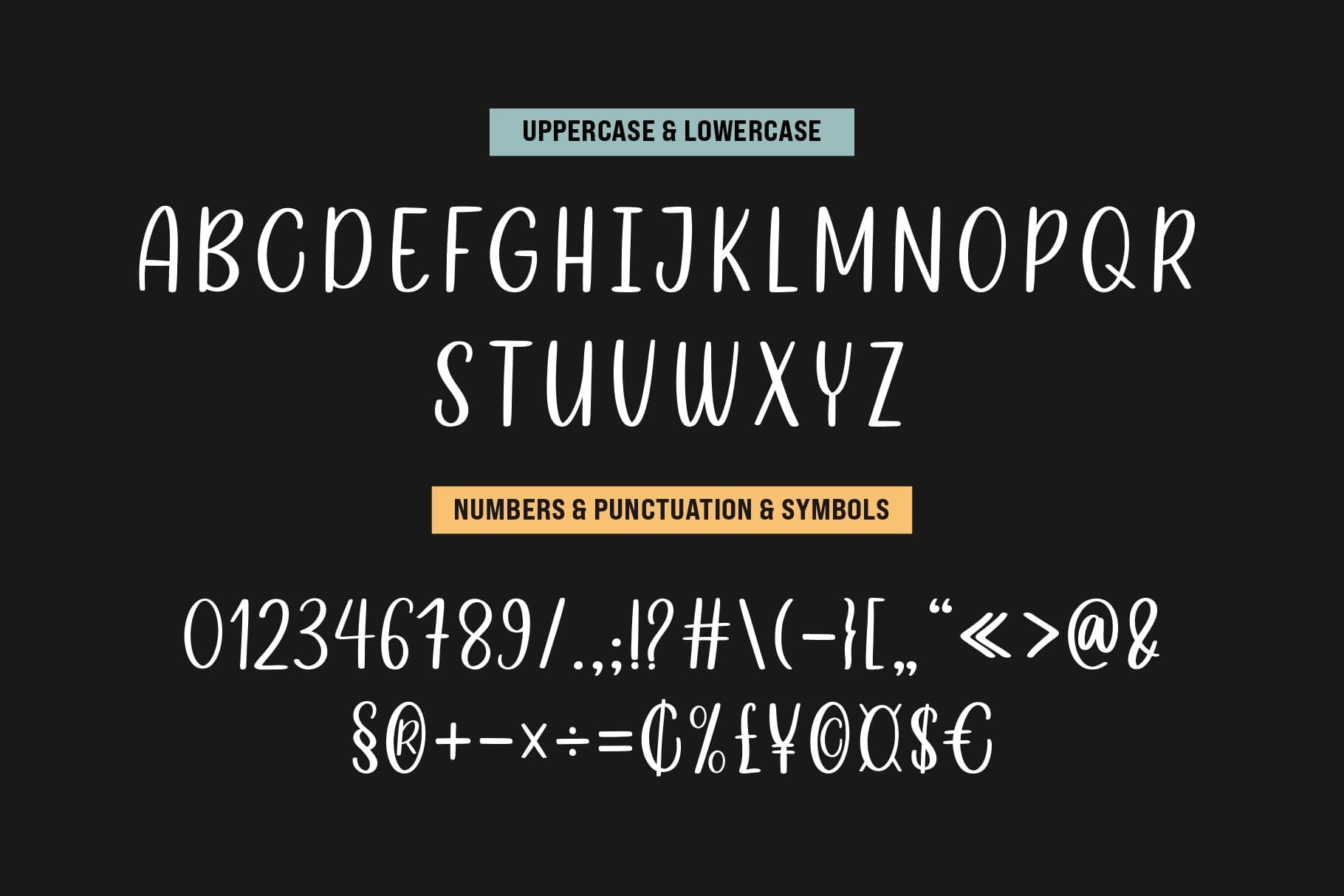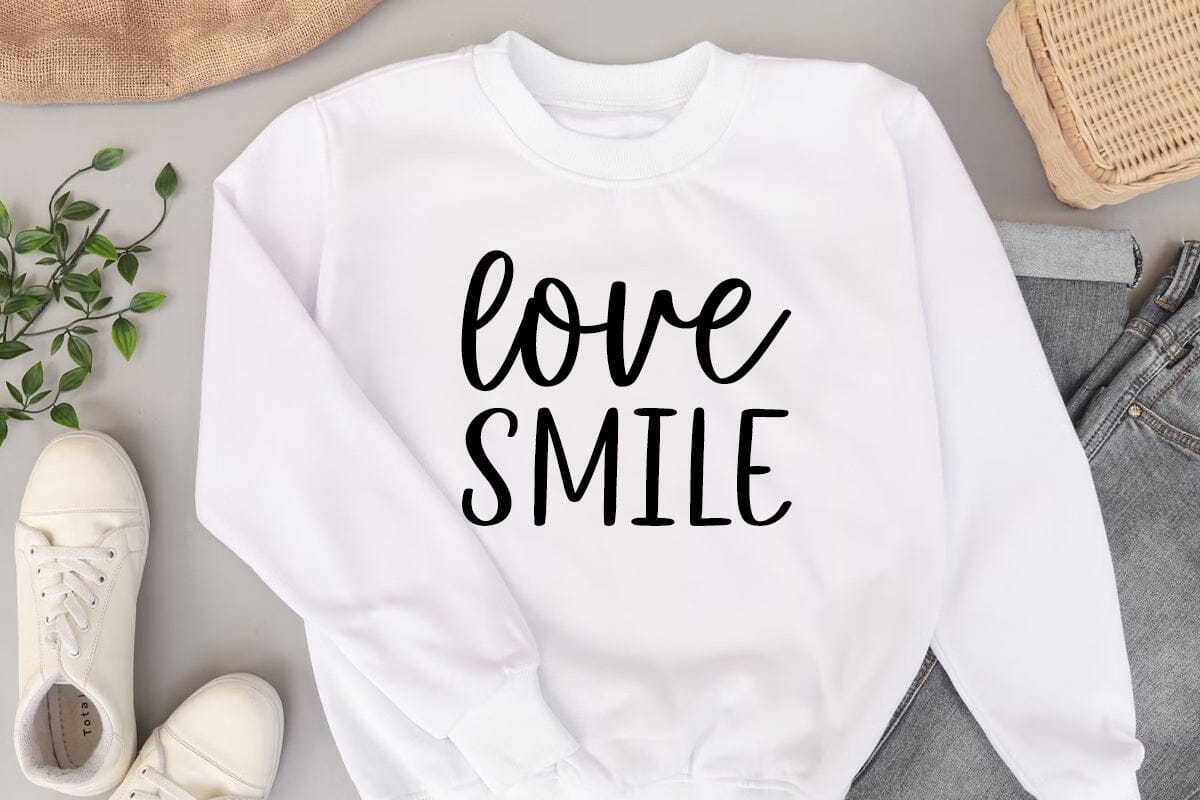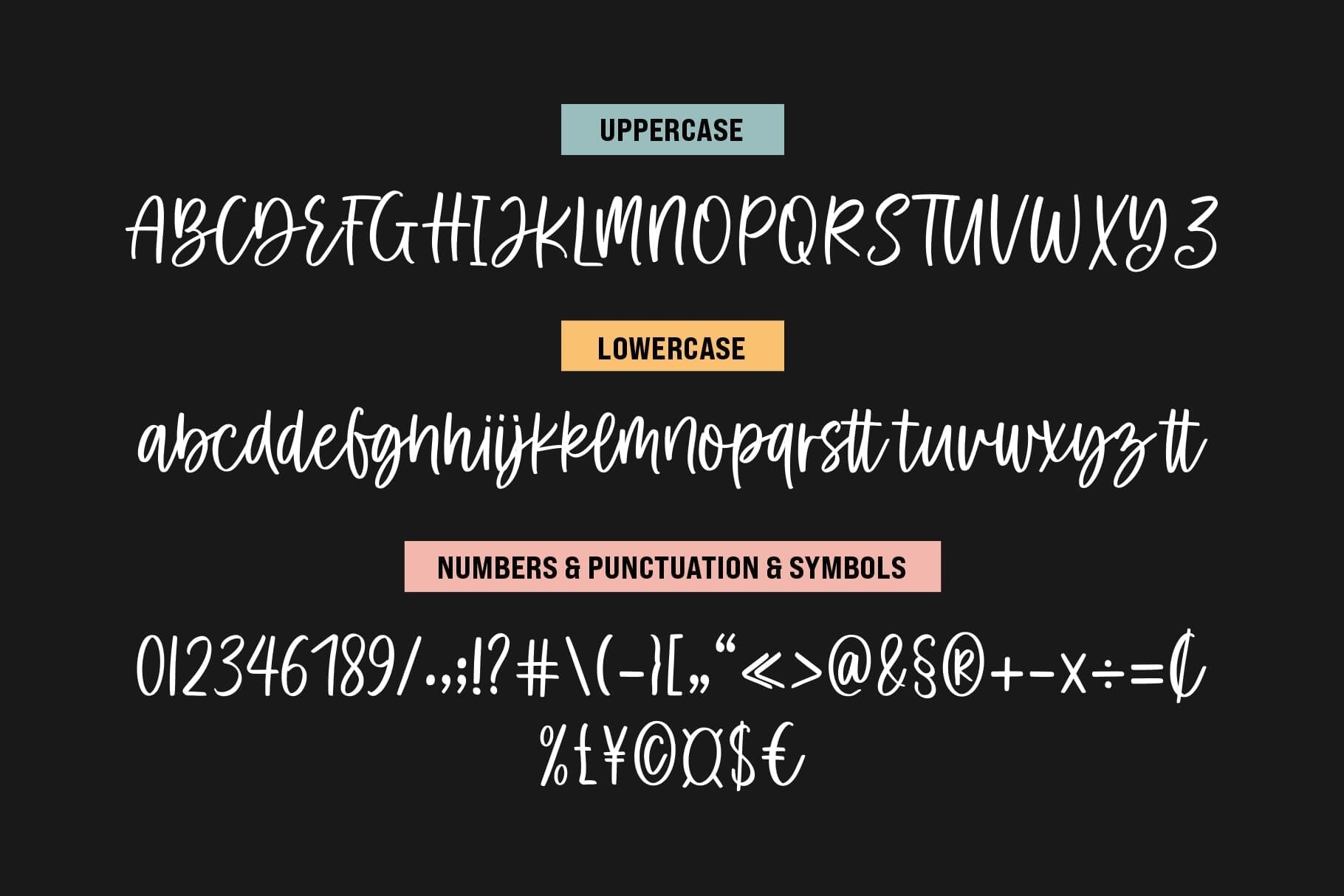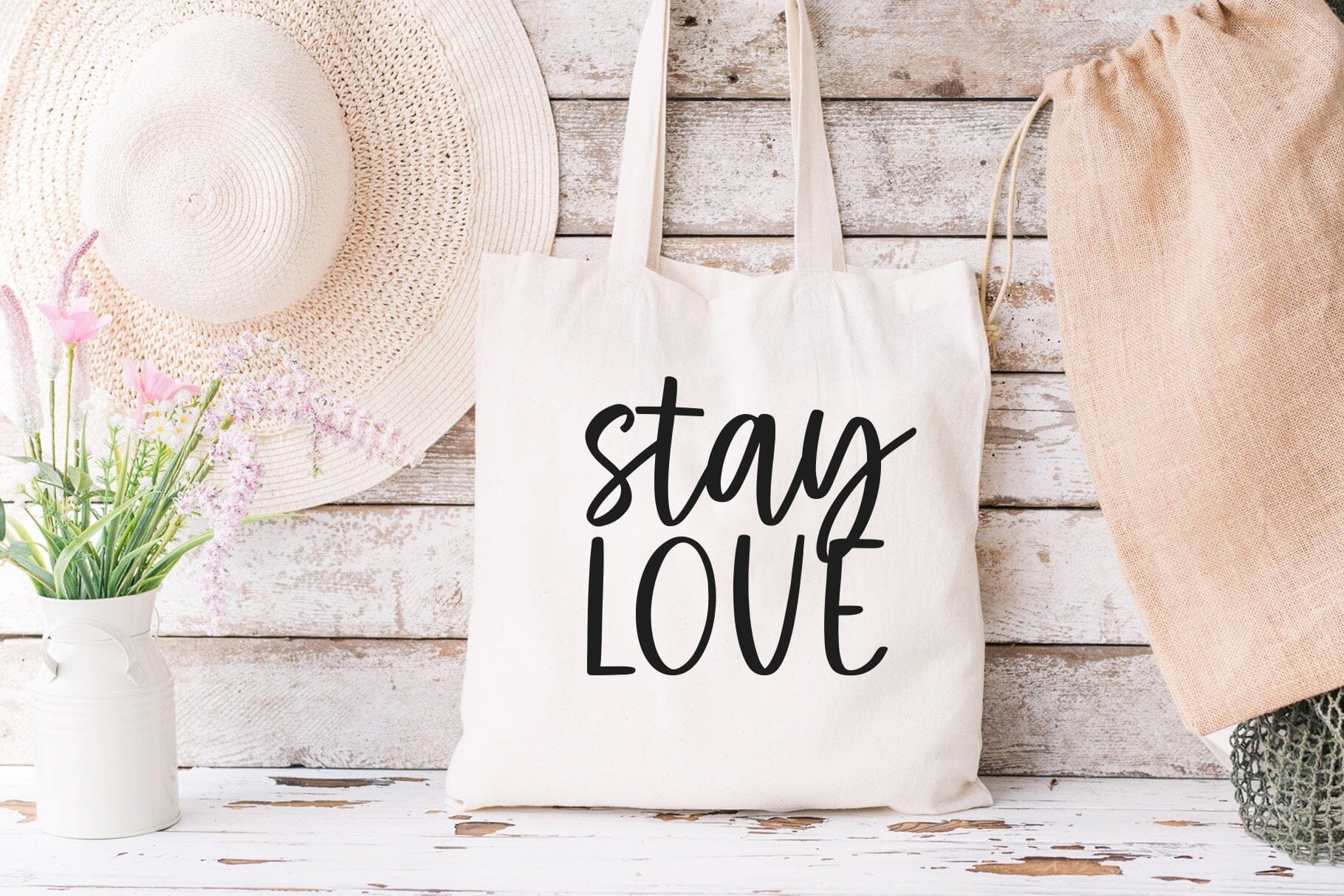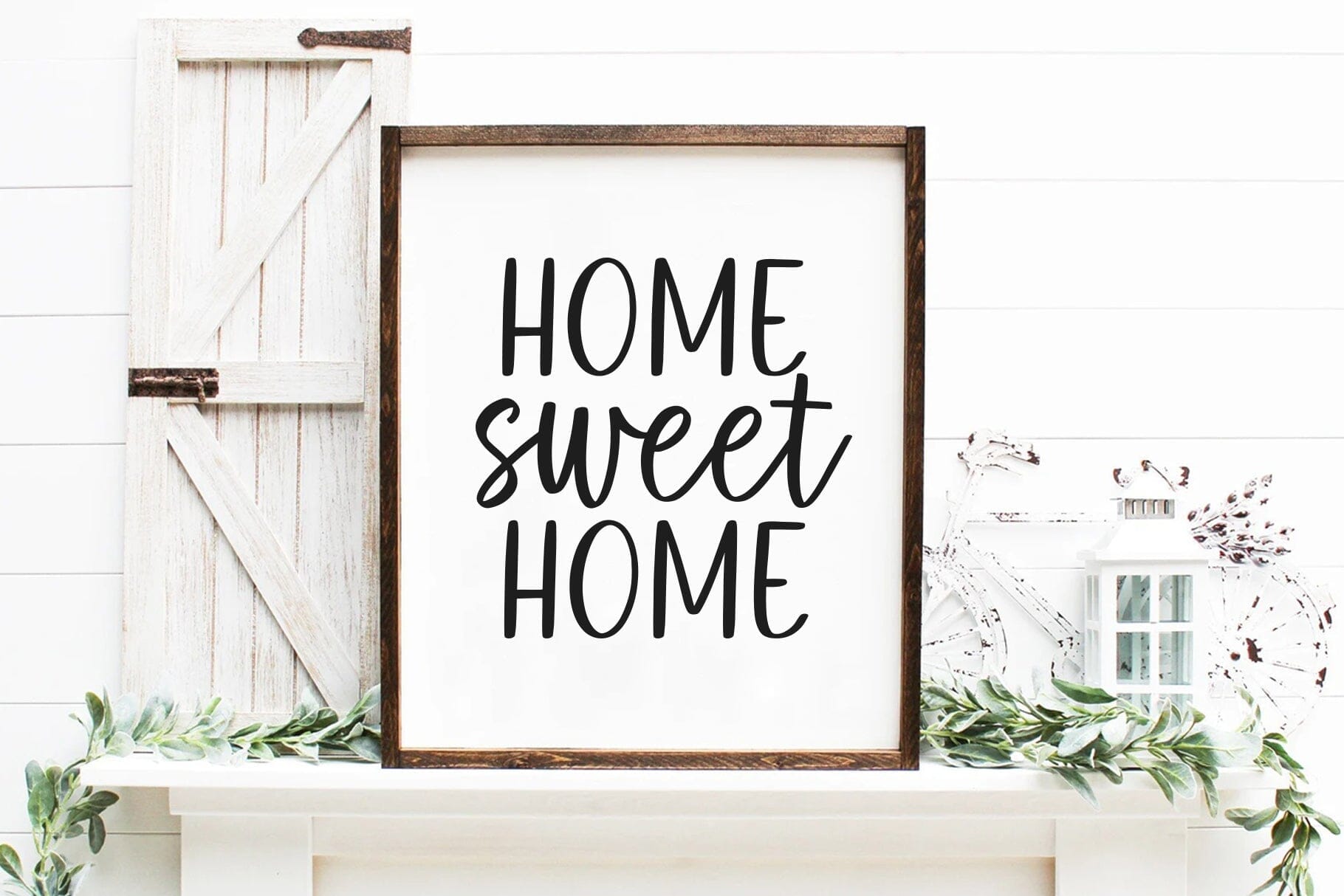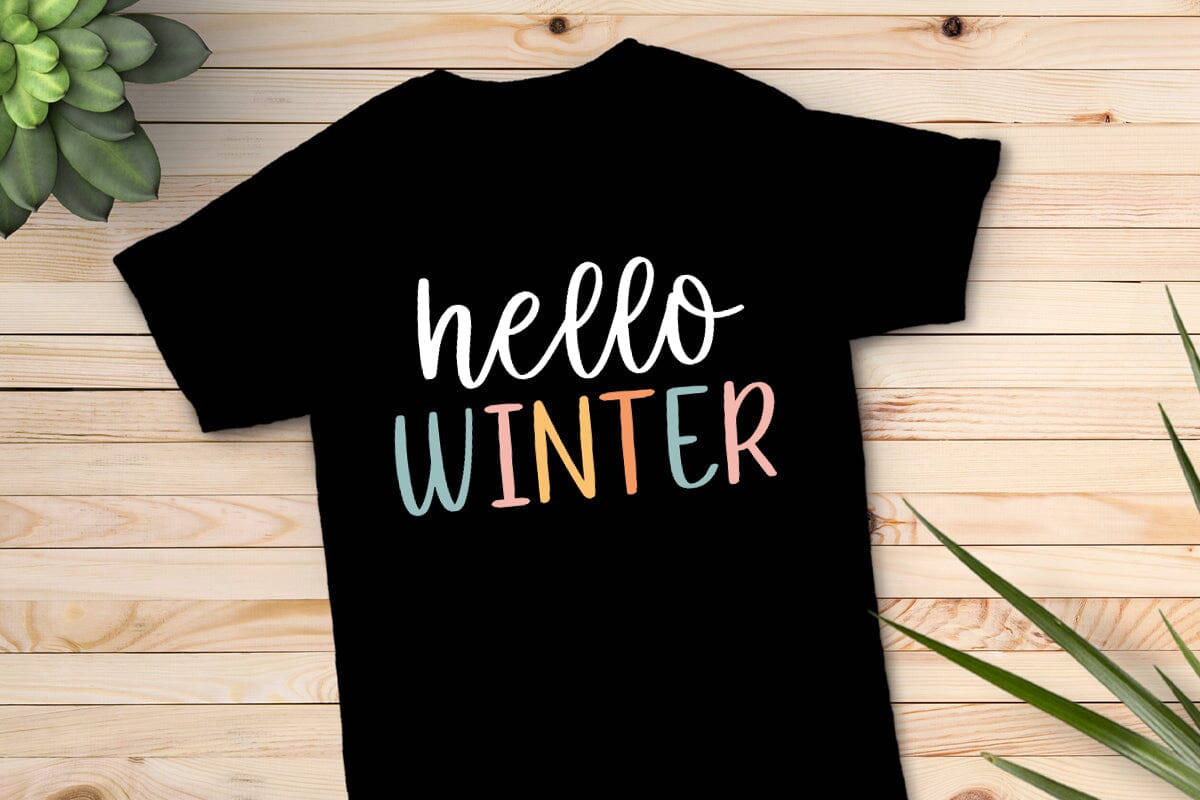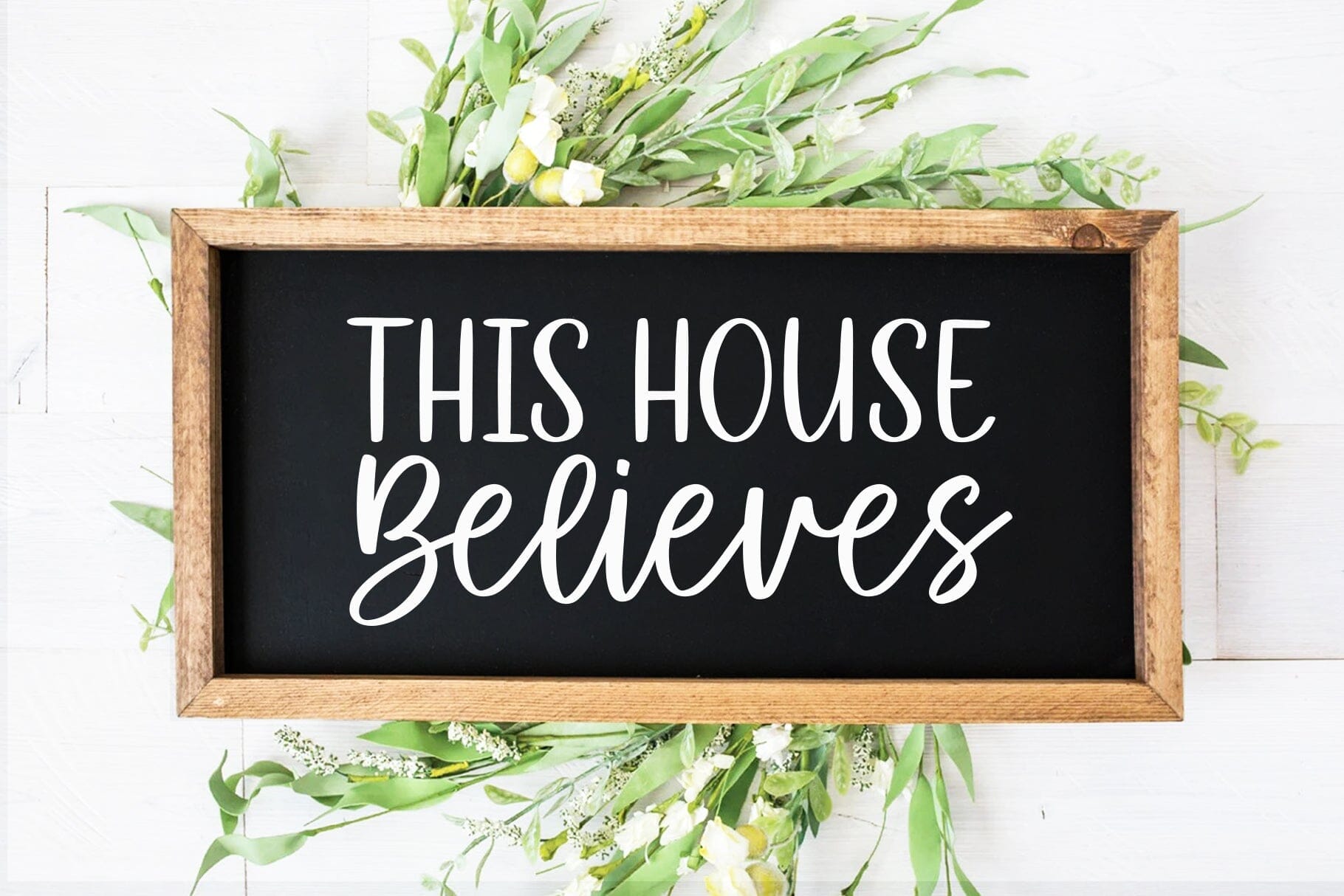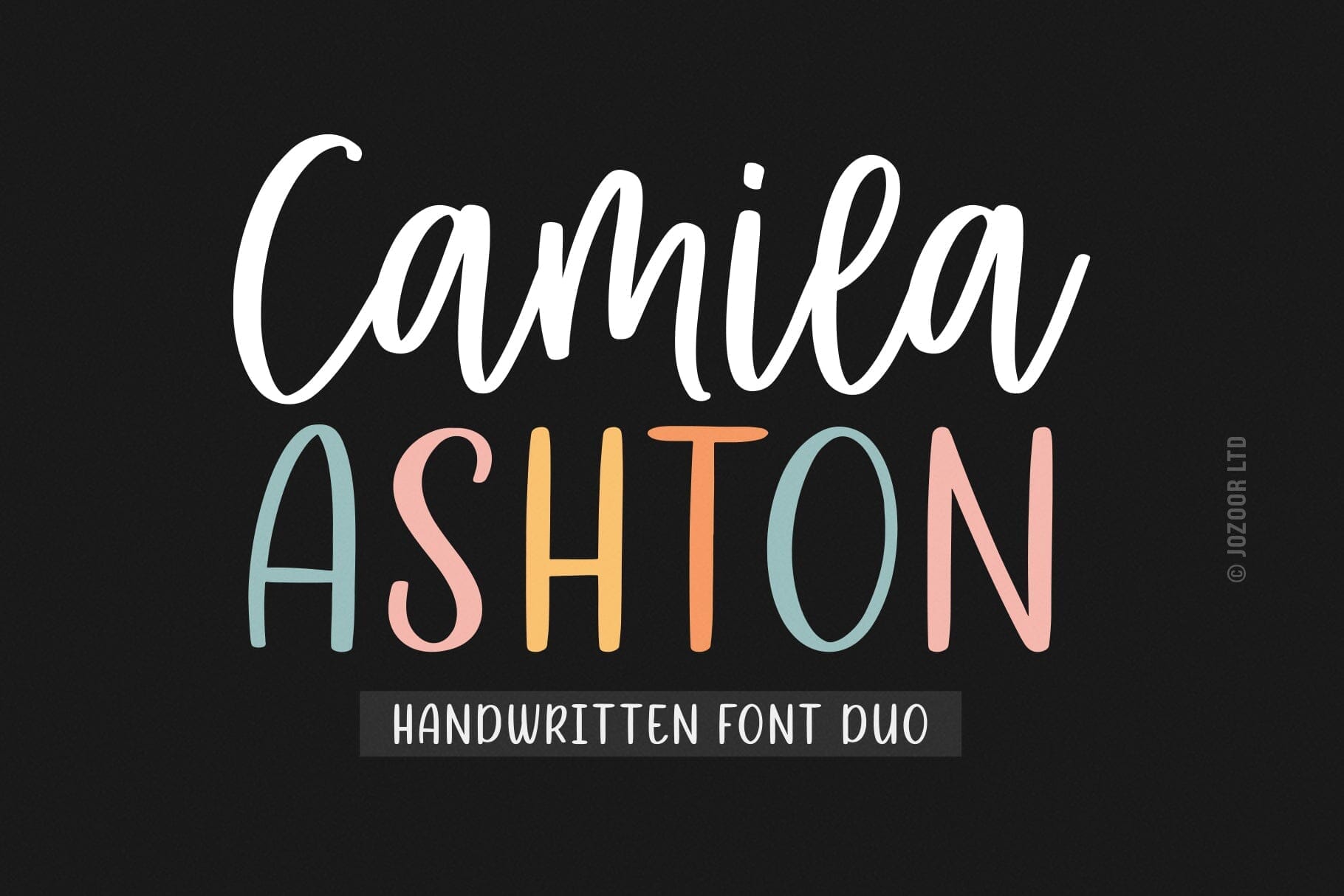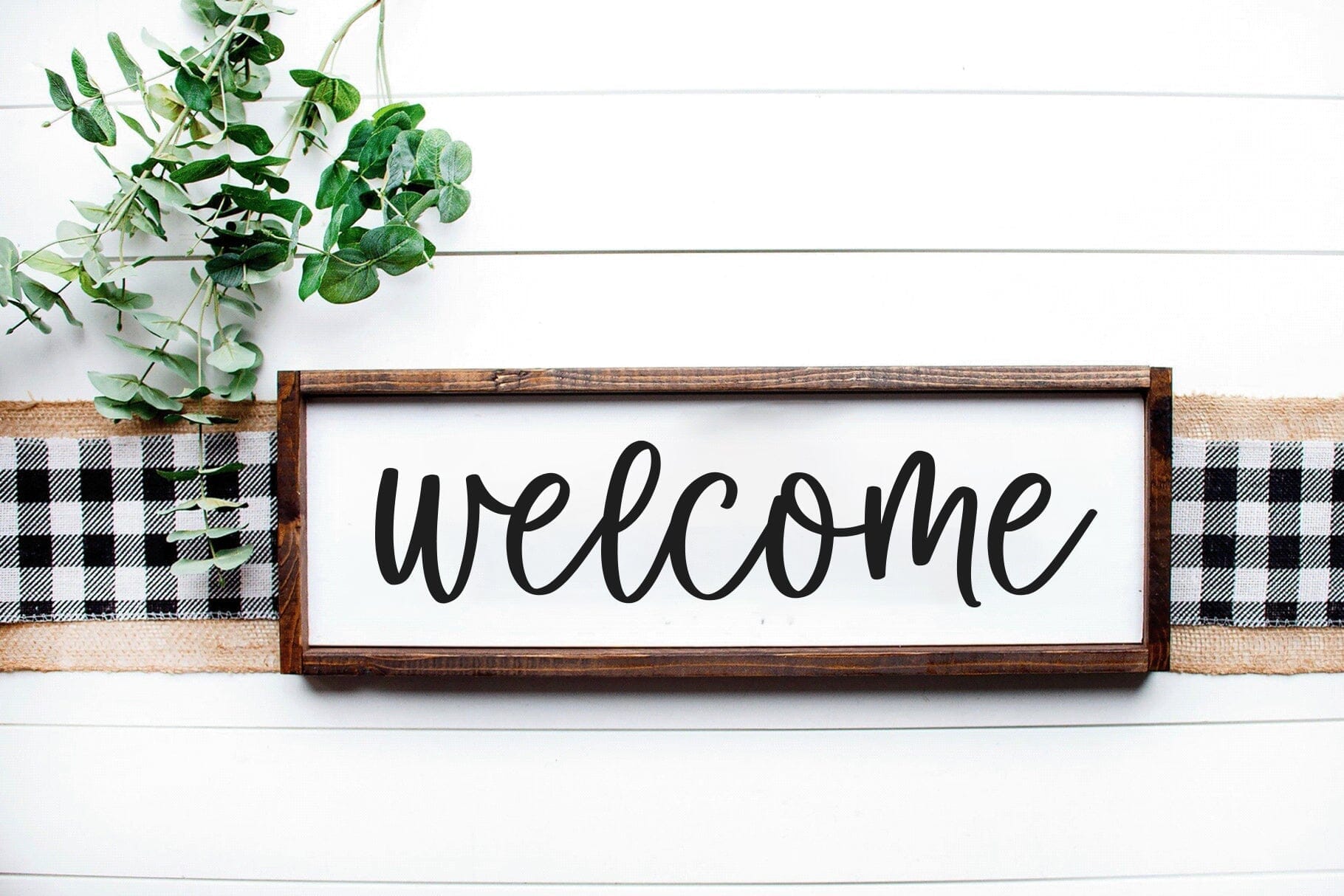
Camila Ashton – Script Font Duo
About Camila Ashton – Script Font Duo
Camila Ashton is a duo-styled handwritten, modern, stylish, and flowing font. It has beautiful and well-balanced characters and as a result, it matches a wide pool of designs. It is the best choice for creating eye-catching logos, branding, and quotes. Add it to your most creative ideas, and notice how it makes them come alive! You will get: OTF Font File. TTF Font File. SVG Font File. User’s Guide PDF file. Hope you enjoy, and happy designing 🙂 ♥ JOZOOR